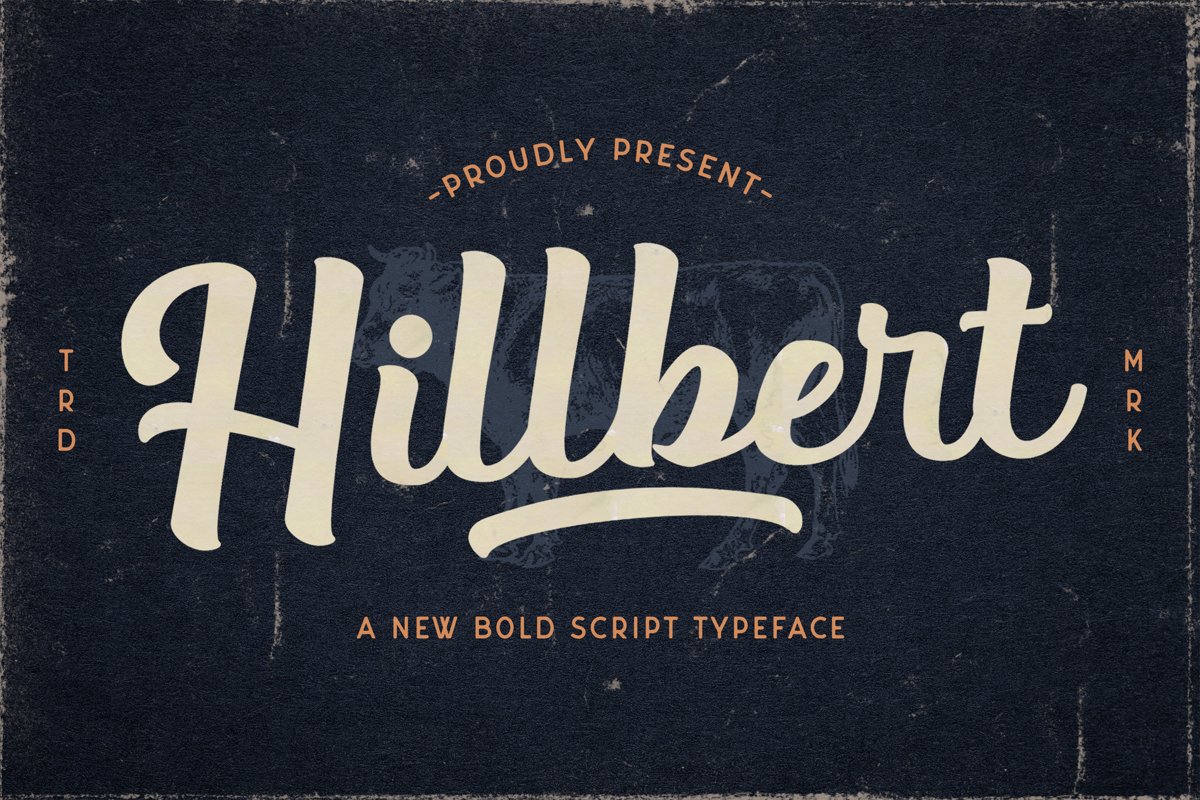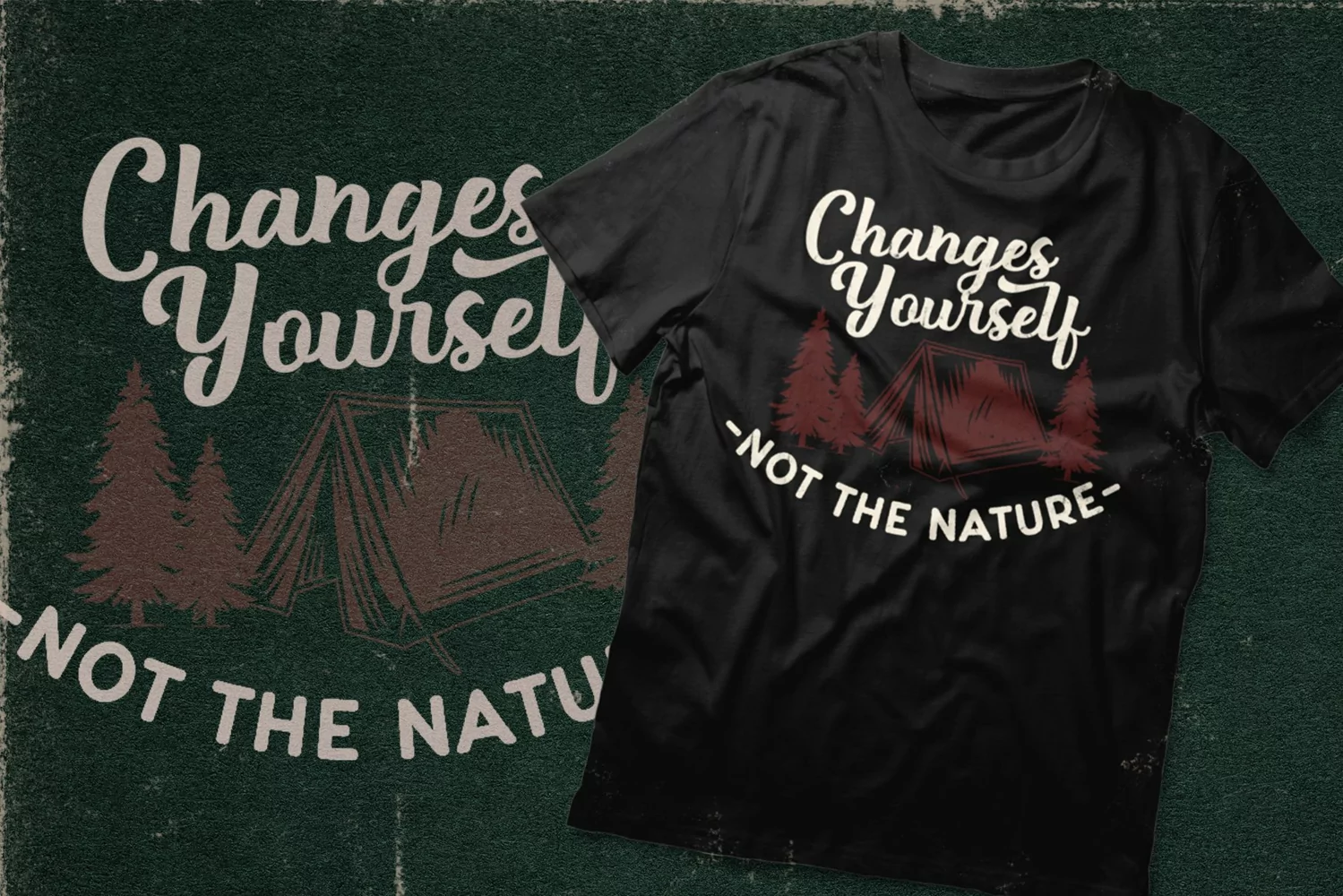
Hillbert is a bold script typeface. Perfect for display, poster, quotes, merchandise, packaging, header, tittle, print, t-shirt, pin, pillow, branding, crafting needs, wedding needs and many more.